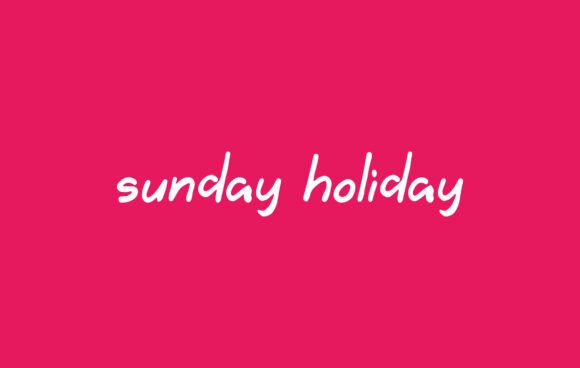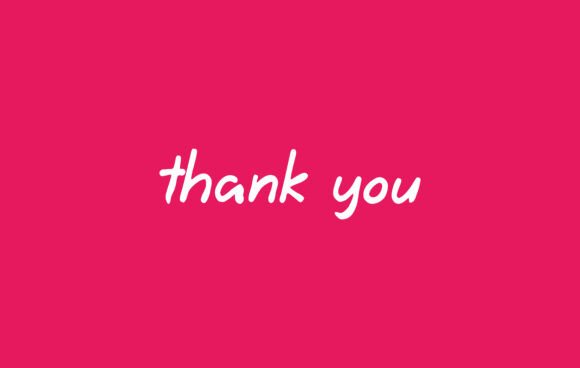
Introducing Happy Hand Font: The Perfect Blend of Romance and Creativity
Are you a designer, crafter, or DIY enthusiast looking for a unique and authentic handwritten font to elevate your creative projects? Look no further than Happy Hand Font, a beautifully crafted font that exudes a romantic touch and is sure to become your new favorite.
What is Happy Hand Font?
Happy Hand Font is an expertly designed handwritten font that boasts a distinctive and charming personality. With its authentic and organic feel, this font is perfect for adding a personal touch to a wide range of creative projects, from wedding invitations and branding materials to craft tutorials and social media graphics.
The Characteristics of Happy Hand Font
So, what sets Happy Hand Font apart from other fonts? Here are just a few of its key characteristics:
- Authentic Handwritten Style: Happy Hand Font is carefully crafted to mimic the look and feel of handwritten text, with subtle imperfections and variations that give it a genuine and human touch.
- Romantic Touch: This font exudes a sense of romance and whimsy, making it perfect for projects that require a touch of elegance and sophistication.
- Highly Versatile: Happy Hand Font is incredibly versatile, and can be used for a wide range of creative projects, from digital graphics and invitations to craft tutorials and more.
- Easy to Read: Despite its ornate and decorative style, Happy Hand Font is surprisingly easy to read, making it perfect for use in body text as well as headlines and titles.
How to Use Happy Hand Font in Your Creative Projects
Happy Hand Font is an incredibly versatile font that can be used in a wide range of creative projects. Here are just a few ideas to get you started:
- Wedding Invitations and Stationery: Add a touch of romance and elegance to your wedding invitations, save-the-dates, and other stationery with Happy Hand Font.
- Branding and Packaging: Use Happy Hand Font to create unique and eye-catching branding materials, such as business cards, letterheads, and packaging.
- Craft Tutorials and Patterns: Add a personal touch to your craft tutorials and patterns with Happy Hand Font, perfect for DIY enthusiasts and makers.
- Social Media Graphics: Use Happy Hand Font to create stunning social media graphics, such as quote graphics, announcements, and promotions.
Why Choose Happy Hand Font?
With so many fonts to choose from, why should you choose Happy Hand Font? Here are just a few reasons:
- Unique and Authentic Style: Happy Hand Font boasts a unique and authentic style that will set your creative projects apart from the crowd.
- High-Quality Design: This font is expertly designed to ensure that it looks great in any context, from digital graphics to print materials.
- Perfect for Designers and Crafters: Whether you’re a professional designer or a DIY enthusiast, Happy Hand Font is the perfect choice for anyone looking to add a touch of romance and creativity to their projects.
In conclusion, Happy Hand Font is an exceptional handwritten font that is sure to become a favorite among designers, crafters, and DIY enthusiasts. With its authentic and romantic style, high-quality design, and versatility, this font is perfect for a wide range of creative projects. So why wait? Download Happy Hand Font today and take your creative ideas to the highest level!